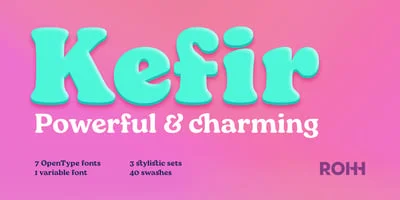
Kefir Font
Kefir Font is ideal for health food brands, probiotic product packaging, organic wellness companies, natural nutrition labels, fermented food businesses, healthy lifestyle blogs, wholesome restaurant menus, and authentic wellness communications requiring natural appeal.
What makes Kefir Font exciting is its wholesome authenticity that embodies the natural goodness and health-conscious appeal of organic wellness through clean, nourishing letterforms. This refreshing typeface features balanced character construction with gentle curves that evoke the cultured richness and beneficial qualities of fermented nutrition, making it perfect for brands seeking to communicate health benefits and natural authenticity in their wellness communications.
The Kefir Font family includes regular and bold weights, plus organic alternates and wellness-inspired decorative elements that enhance the healthy aesthetic with natural styling options and nutrition-focused typography variations for health industry applications.
This wholesome typeface delivers exceptional health appeal and organic authenticity, making Kefir Font a valuable resource for wellness and nutrition industry projects. The font's healthy character makes it perfect for organizations wanting to convey natural goodness and nutritional benefits in their brand communications. Health food manufacturers and wellness centers particularly appreciate its ability to communicate organic quality and probiotic benefits instantly to health-conscious consumers. The naturally designed letterforms ensure excellent readability while preserving the wholesome appeal of fermented nutrition across all applications from product labels to wellness center materials. Whether you're creating packaging for probiotic supplements or developing branding for organic wellness brands, this font provides the perfect combination of natural authenticity and commercial health appeal. Creative professionals consistently choose this typeface for projects requiring that ideal balance of wellness messaging and nutritional credibility, making it invaluable for health communications that celebrate both natural nutrition and scientific wellness benefits in today's health-conscious consumer market.